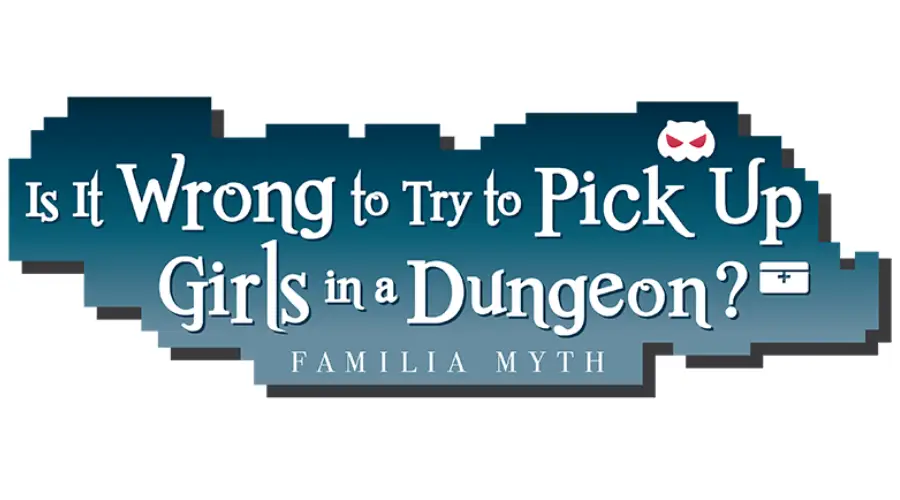
The DanMachi Font is a distinctive typeface often associated with the popular anime and light novel series “Is It Wrong to Try to Pick Up Girls in a Dungeon?” (commonly abbreviated as DanMachi). This font is widely recognized for its use in the series’ logo and branding, characterized by its elegant, serif-style design with a touch of fantasy and medieval aesthetics.
If you’re looking for fonts similar to DanMachi Font, here are two great alternatives:
Romance Fatal Serif by Juan Casco – This is a replica font used in the DanMachi logo.
Absinette Condensed Regular by Greater Albion Typefounders – A similar font with a condensed and elegant design.